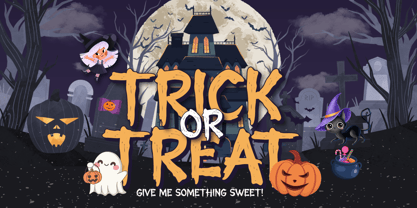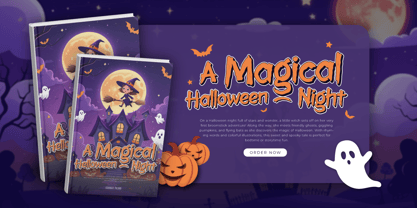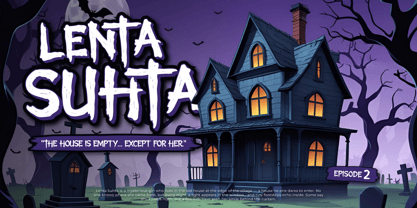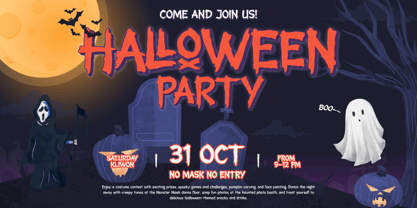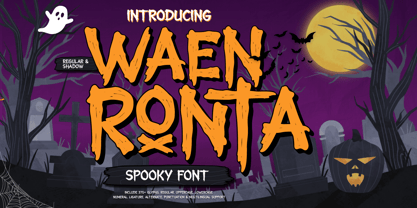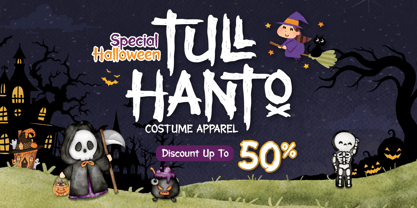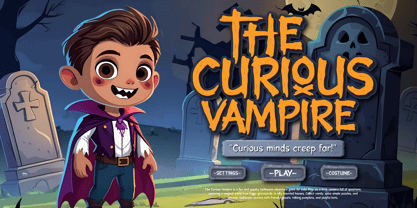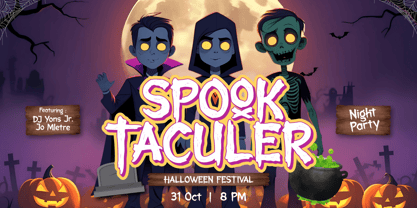
Waen Ronta
by Twinletter
The Waen Ronta Font Family was designed by Rozikan and published by Twinletter. Waen Ronta contains 2 styles and family package options. More about this family
Waen Ronta is a spine-chilling spooky display font designed to send shivers down your spine! Featuring two haunting styles—Regular and Shadow—this font is perfect for Halloween themes, horror movie titles, eerie invitations, scary storybooks, and creepy branding materials.
With sharp strokes and unsettling curves, each character in Waen Ronta captures a sense of dread and suspense. The Shadow style adds a ghostly depth, making your text appear to lurk off the page—just like something creeping in the dark. Whether you're designing for haunted houses, thriller posters, or anything delightfully dark, Waen Ronta delivers the perfect eerie atmosphere.
Unleash the fear and let Waen Ronta bring your spooky creations to life—or death.
Designers: Rozikan Rozikan
Foundry: Twinletter